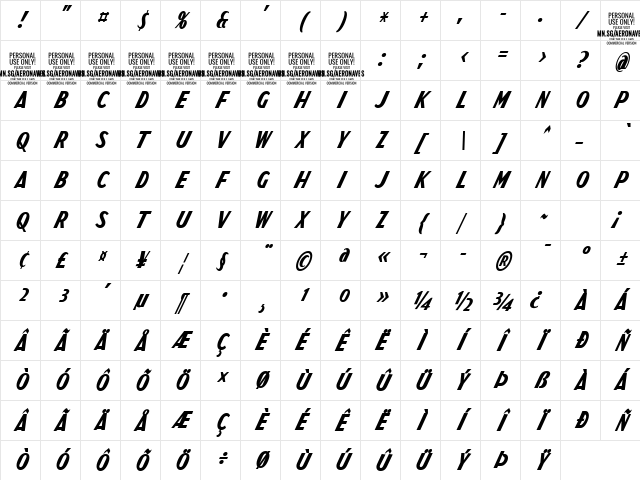
Complete Aeronaves PERSONAL USE ONLY Regular glyph index. Displaying only characters natively supported by Aeronaves PERSONAL USE ONLY Regular font.
Aeronaves PERSONAL USE ONLY is a composed and adaptable typeface that performs quietly and consistently across a wide range of design contexts.
Who designed the Aeronaves PERSONAL USE ONLY Regular font?